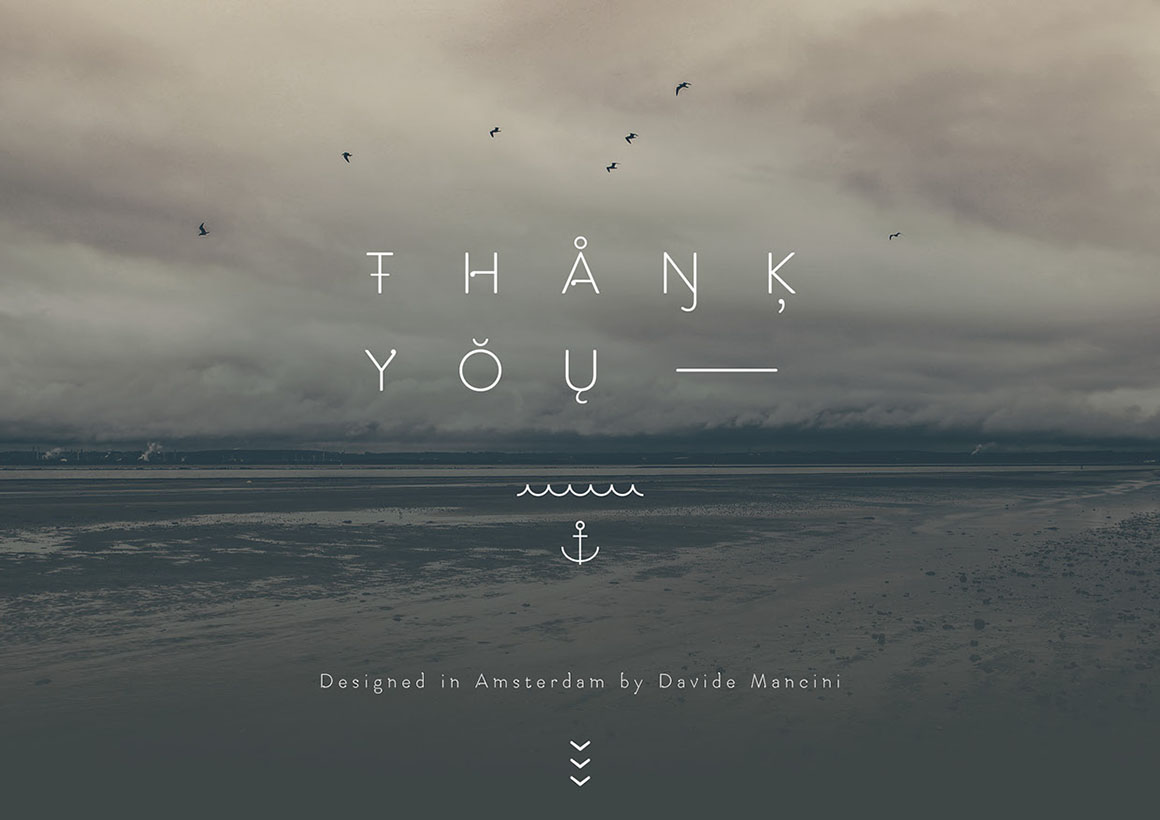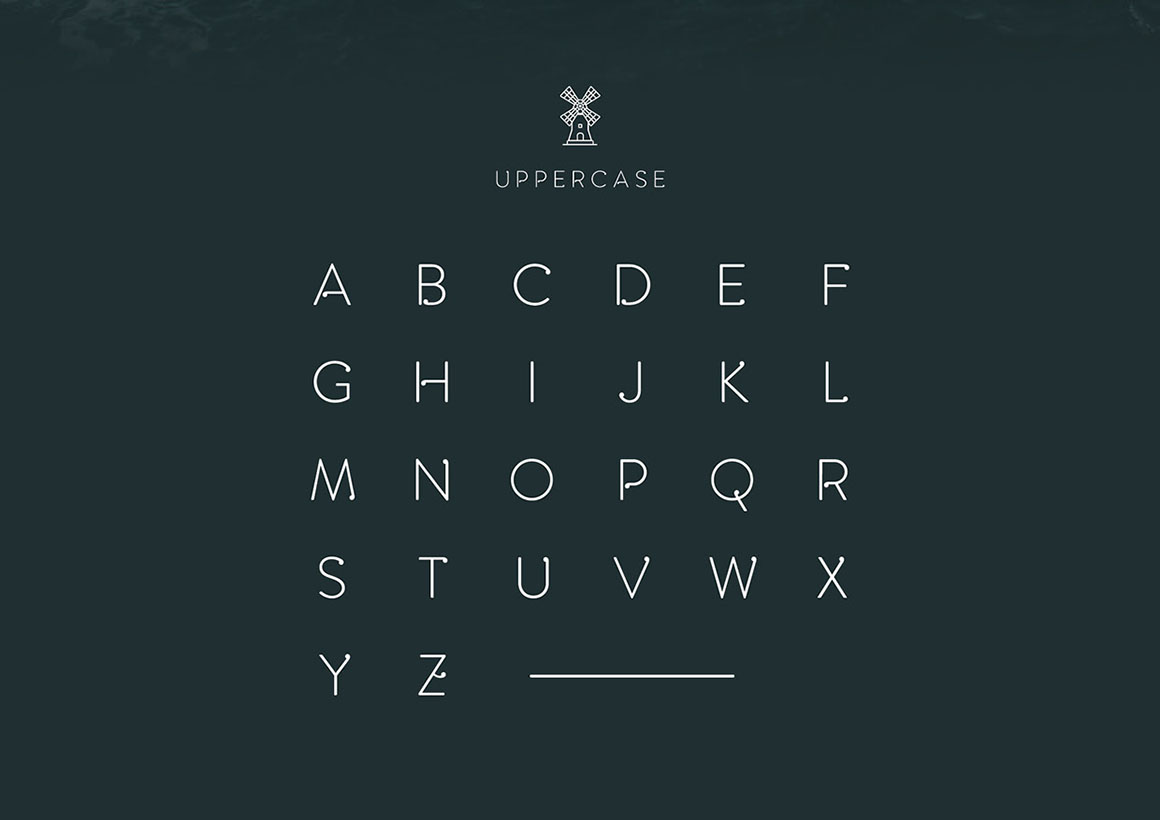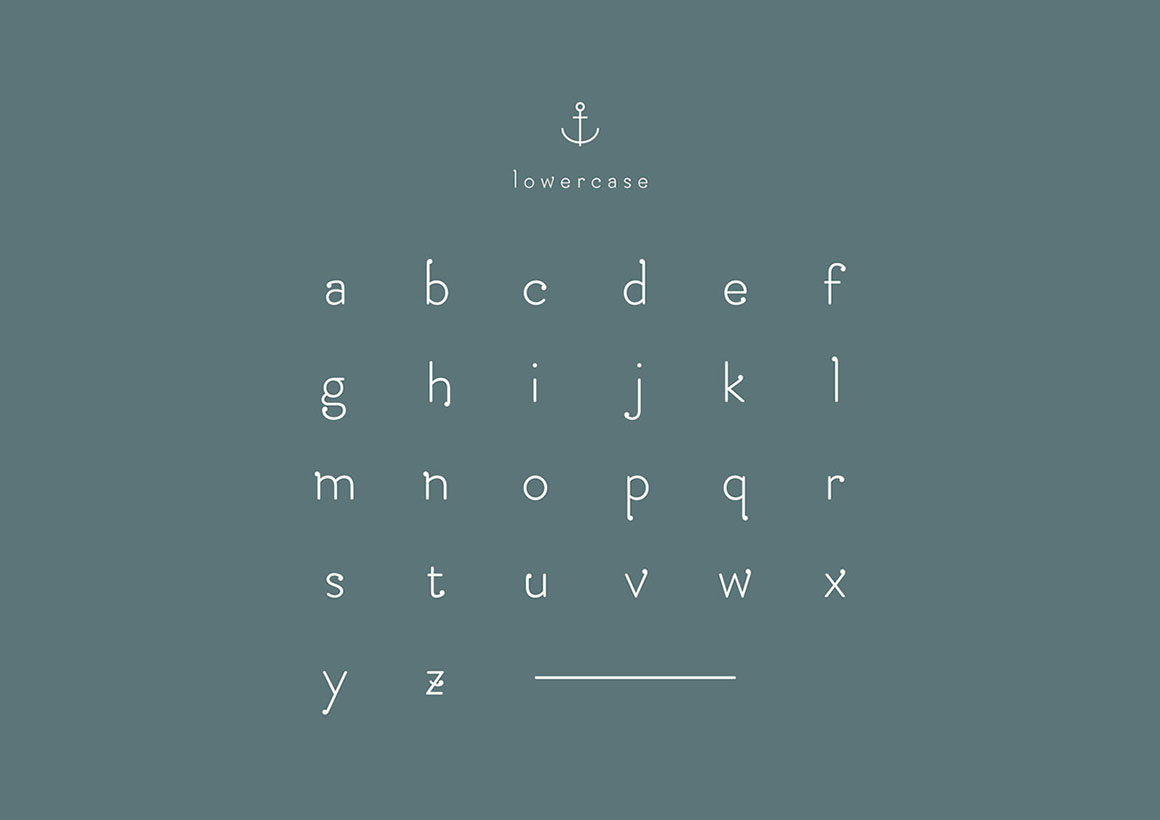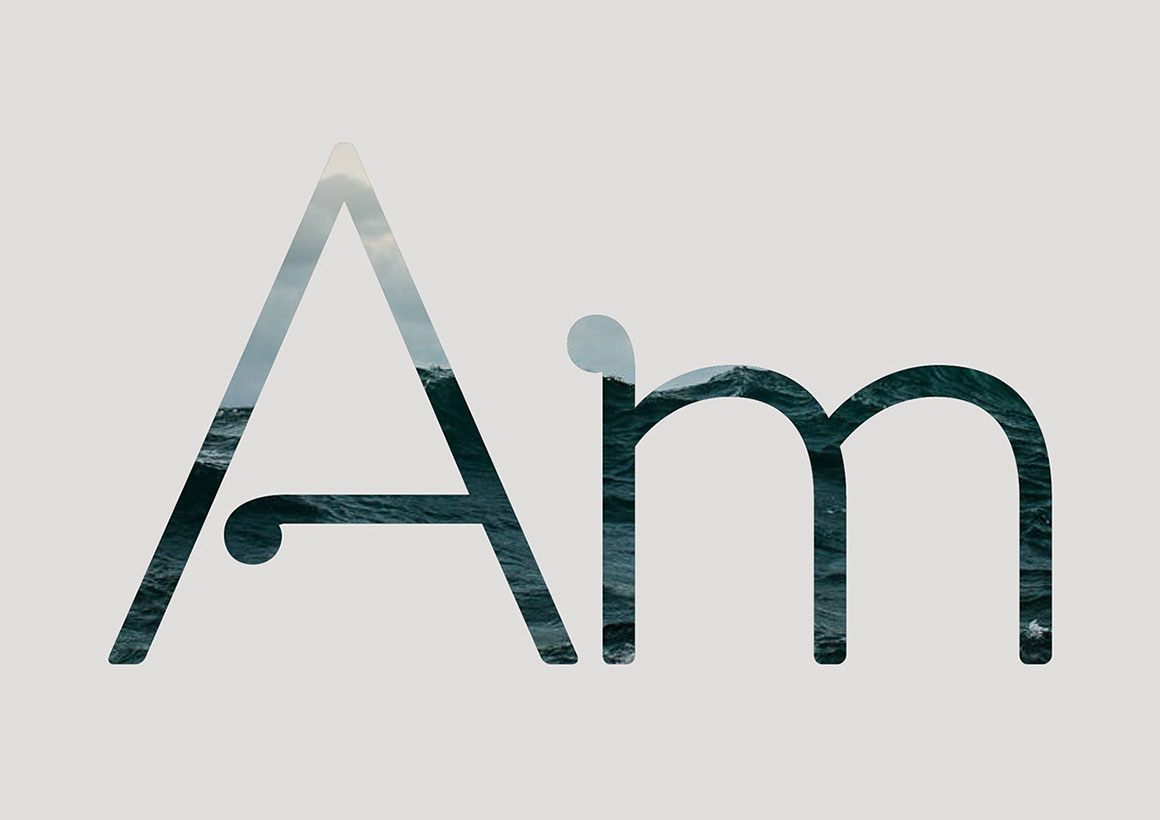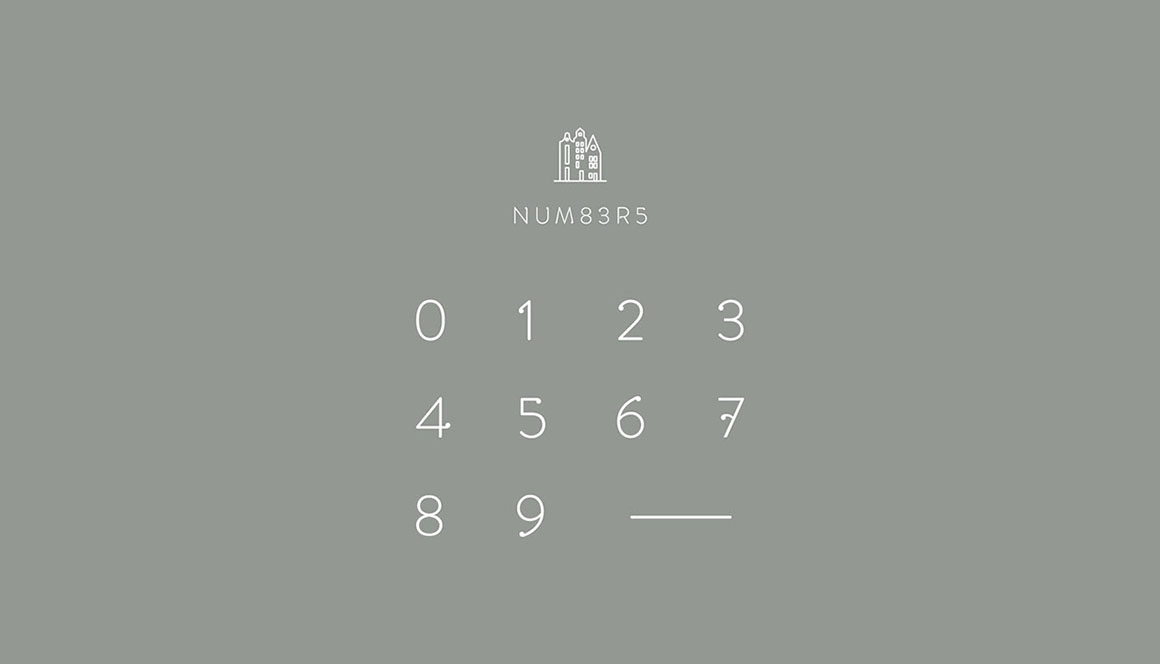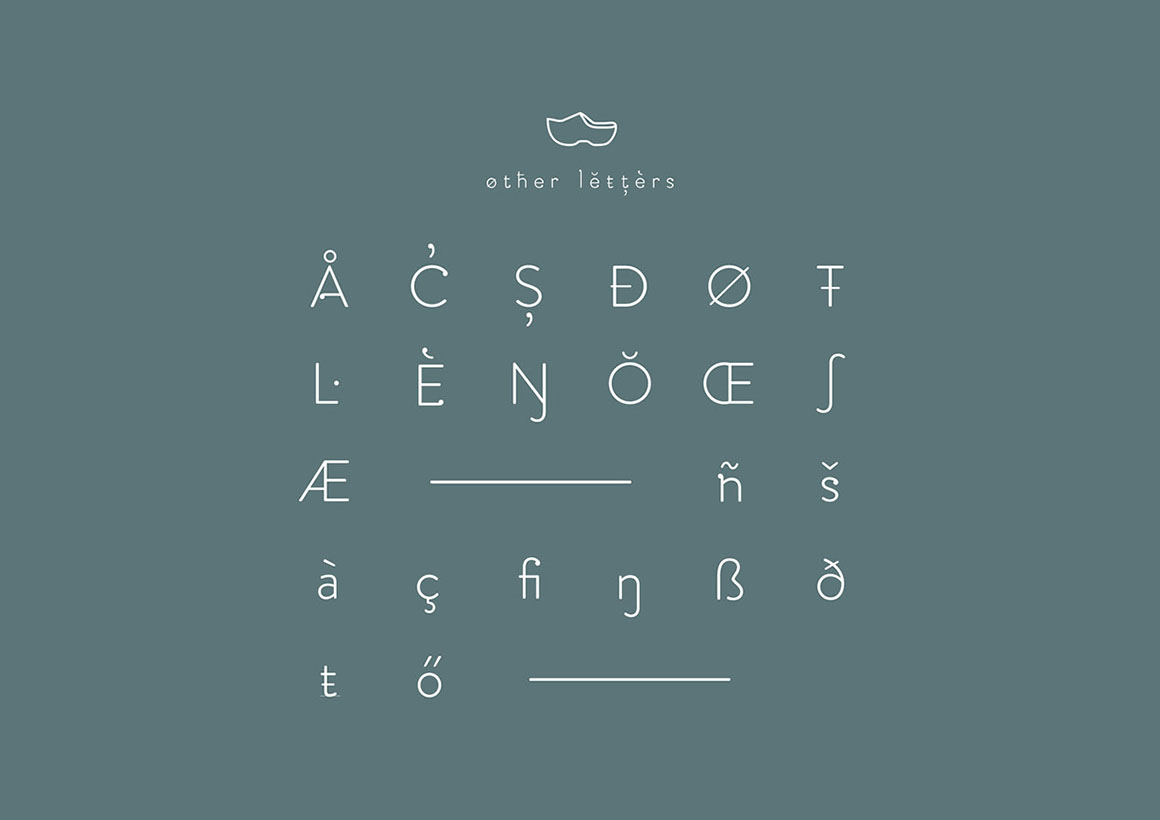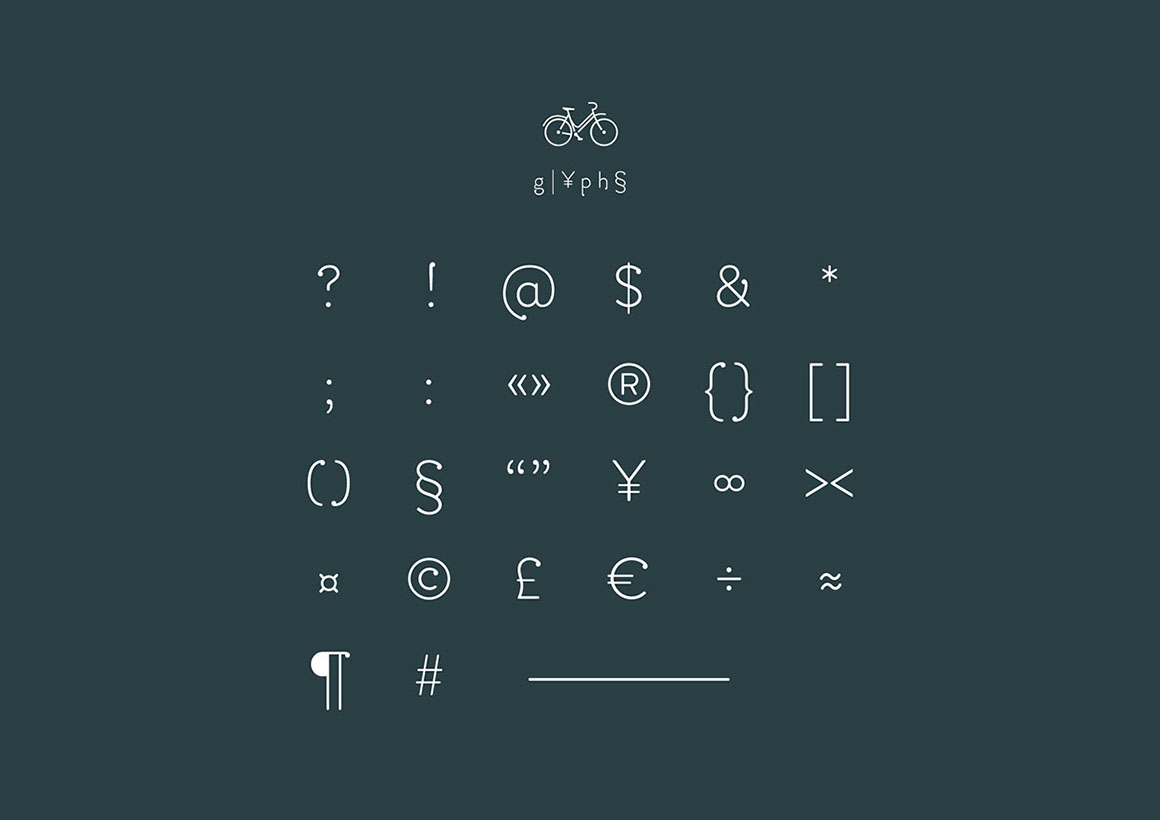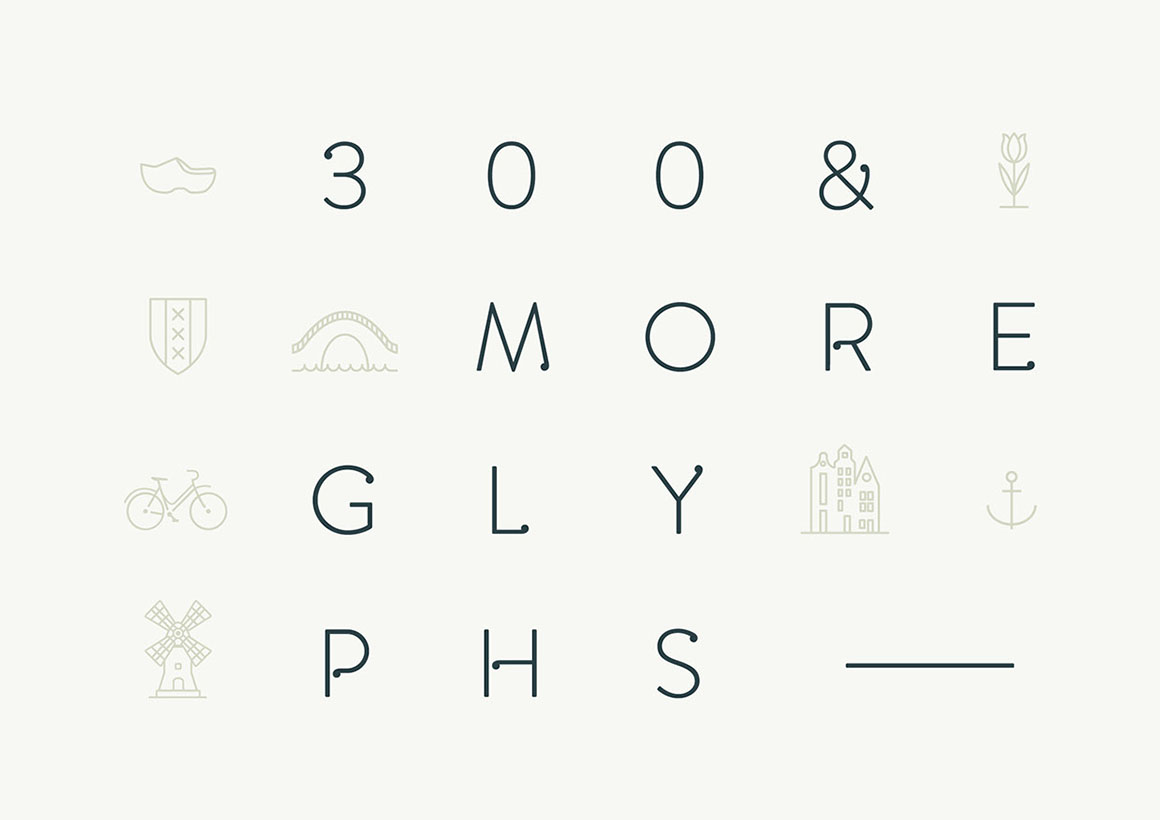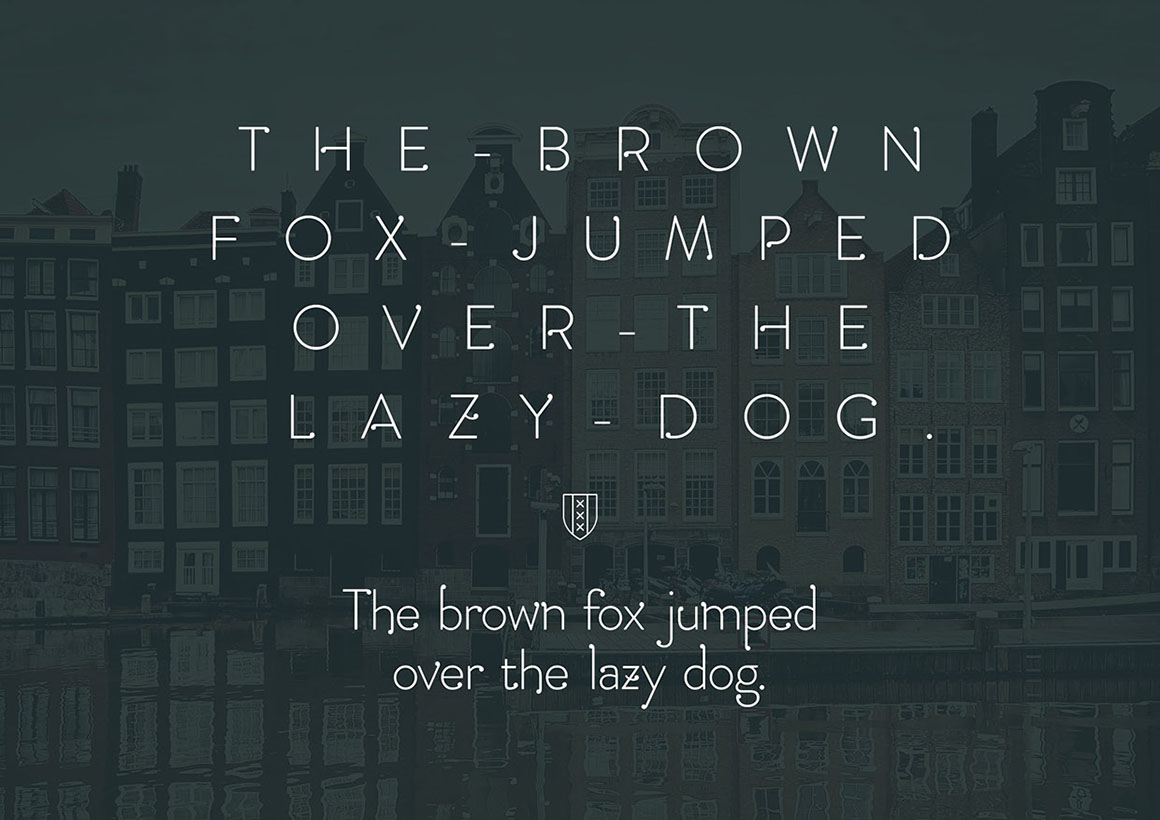
Amsdam – Free Modern Font
This cool modern custom font is from Davide Mancini. With unique clean style and great for your new projects. Download and enjoy 😉